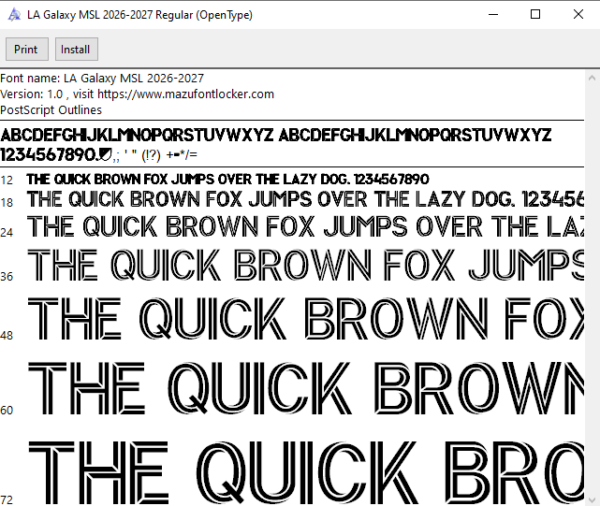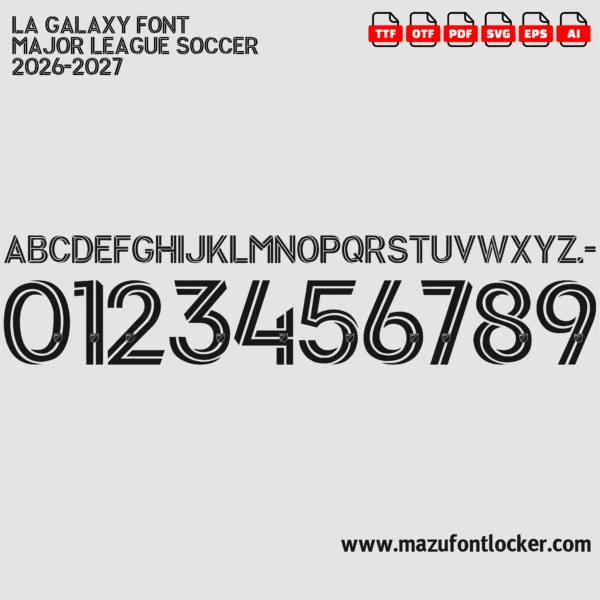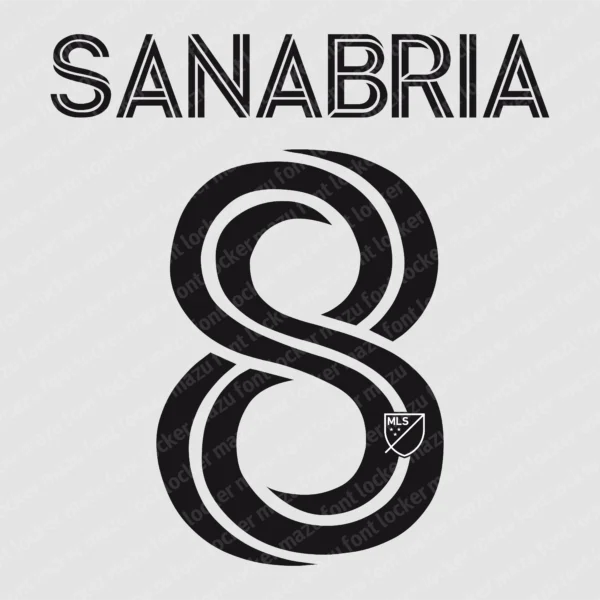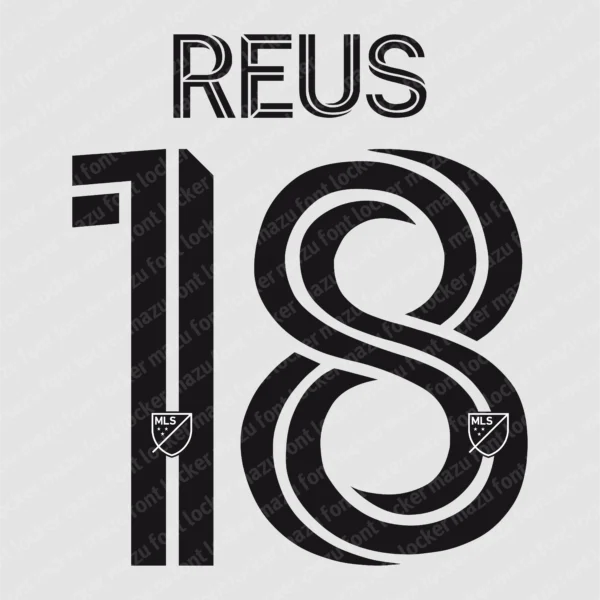
LA Galaxy 2026-2027 Font Vector – Epic Cosmic Blue & Gold Masterpiece
This premium font captures the commanding, iconic, majestic, and battle-ready lettering that embodies the unstoppable LA Galaxy spirit — delivering raw Hollywood fire, explosive winning energy, relentless never-say-die mentality, tactical supremacy, and legendary Galaxy warrior grit.
LA Galaxy 2026-2027 Font Vector – Authentic Galaxy Typeface
The LA Galaxy 2026-2027 Font Vector is a premium typeface that captures the official match lettering style associated with the LA Galaxy during the 2026 MLS season and beyond. This high-quality vector font kit reflects the bold, modern, and dynamic typography that represents the prestige, passion, and Hollywood glamour of one of America’s most iconic soccer clubs.
Designed for professional designers and passionate LA Galaxy fans, the LA Galaxy 2026-2027 Font Vector delivers perfect authenticity for creating realistic jersey mockups, fan merchandise, matchday posters, social media graphics, and MLS content. It pairs beautifully with the iconic white and gold home kit featuring the famous Galaxy crest.
This font stands out because of its sharp vector precision and strong club identity. Every letter and number is crafted to match the exact style used by the LA Galaxy during the 2026-2027 period. Whether you are making realistic kit templates or exciting Galaxy content, the LA Galaxy 2026-2027 Font Vector gives your designs that authentic Los Angeles look.
The letterforms in the LA Galaxy 2026-2027 Font Vector are tall, bold, and highly readable. The strokes have a strong, clean weight with excellent edge definition that looks powerful on the back of jerseys while maintaining the sleek, modern spirit and championship heritage of the Galaxy.
• Full uppercase A–Z and numbers 0–9 in authentic LA Galaxy 2026 style
• MSL crest glyph – Press the “:” (colon) symbol to insert the MSL crest
The LA Galaxy 2026-2027 Font Vector is an independently designed typeface package. It is carefully crafted to replicate the official shirt lettering style used during the 2026 MLS season. This font kit is perfect for creative projects, fan edits, nostalgic jersey designs, and custom football graphics.